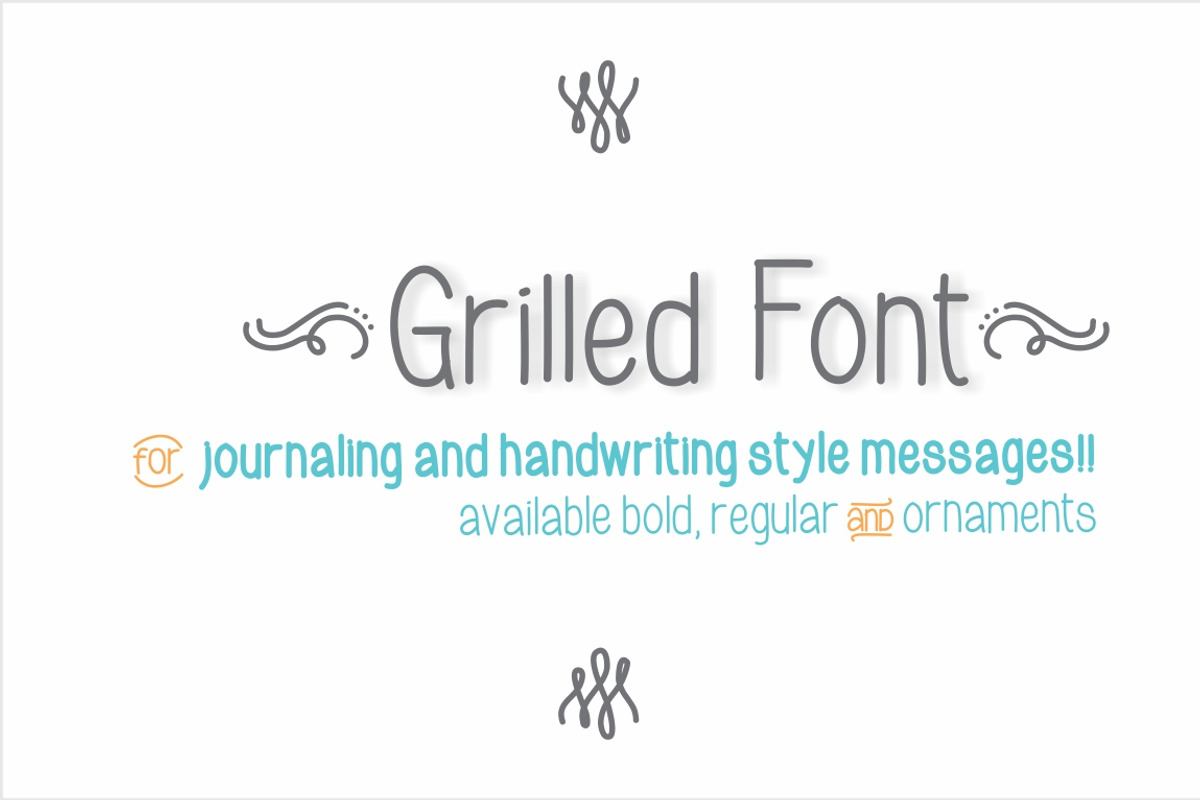
Grilled Font Free Download is a bold and playful display typeface designed to bring personality and fun to your creative projects. Ideal for branding, food packaging, posters, and social media content, this font serves up a quirky, attention-grabbing style that’s full of flavor. Please note that you must purchase this font for commercial use, but it is available as a free download for testing purposes. Spice up your designs with Grilled Font Free Download and make every word stand out with deliciously bold and unique character.